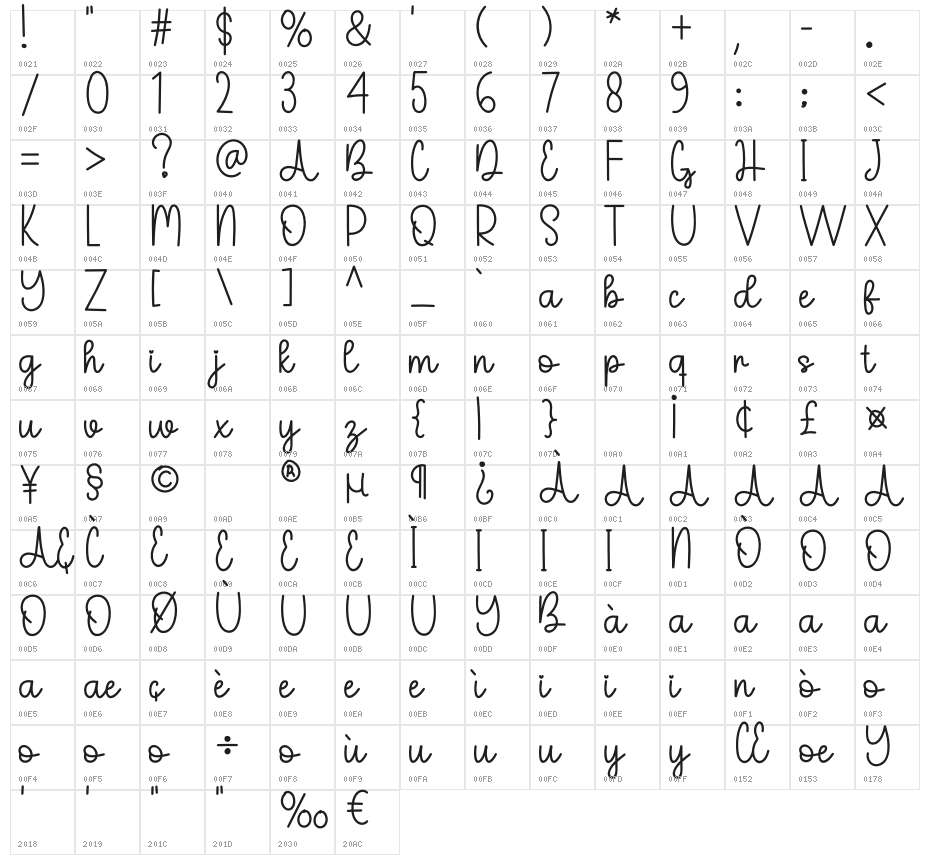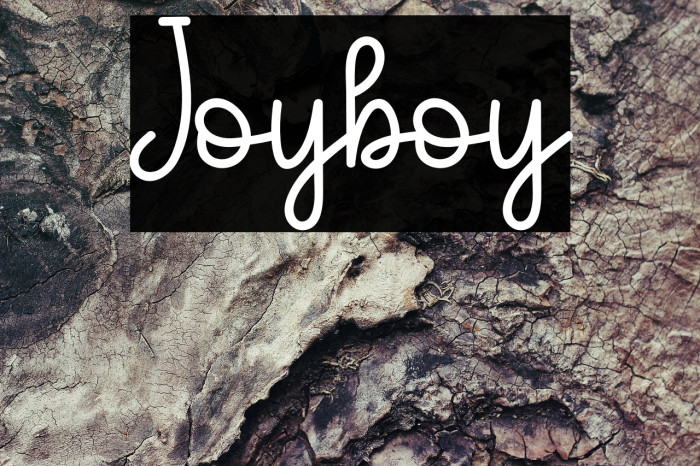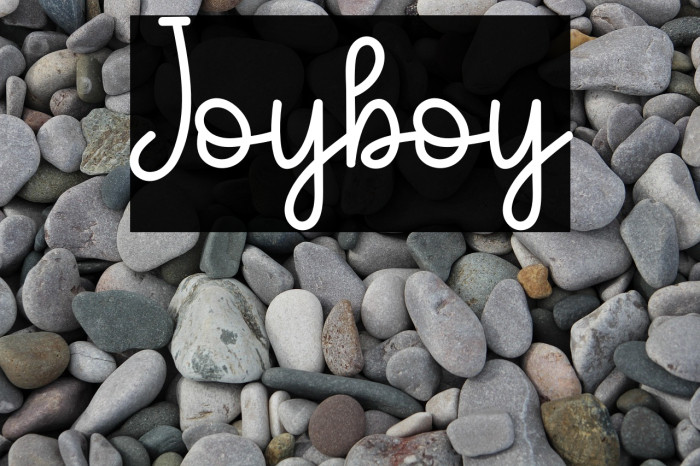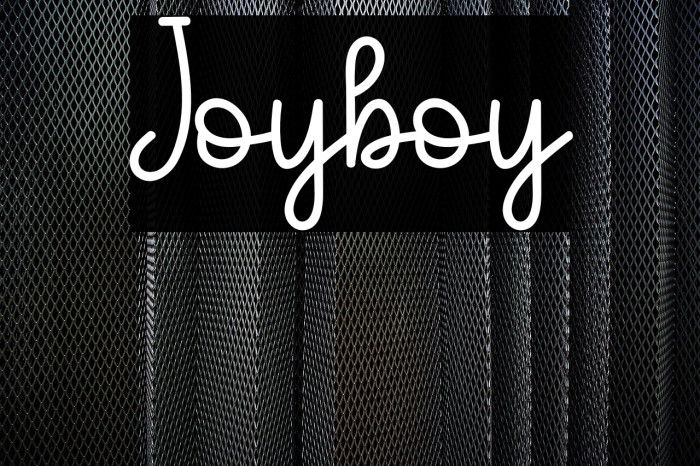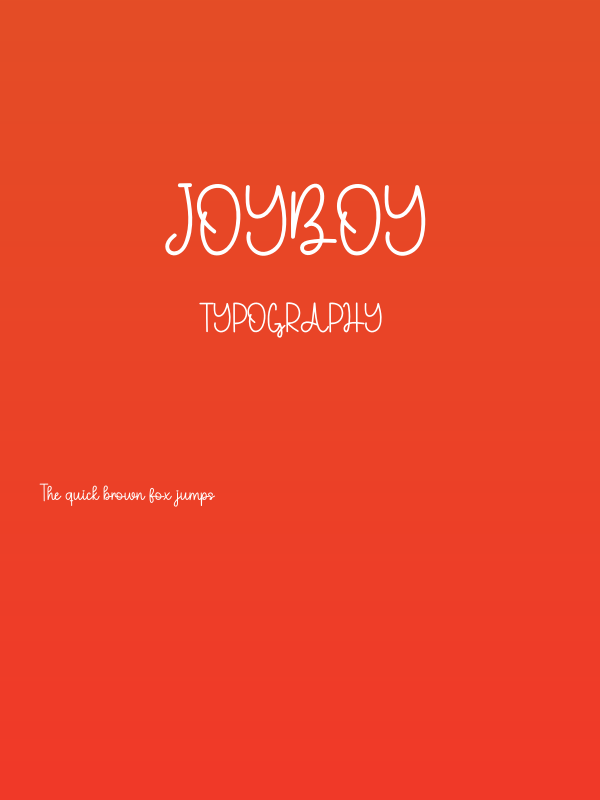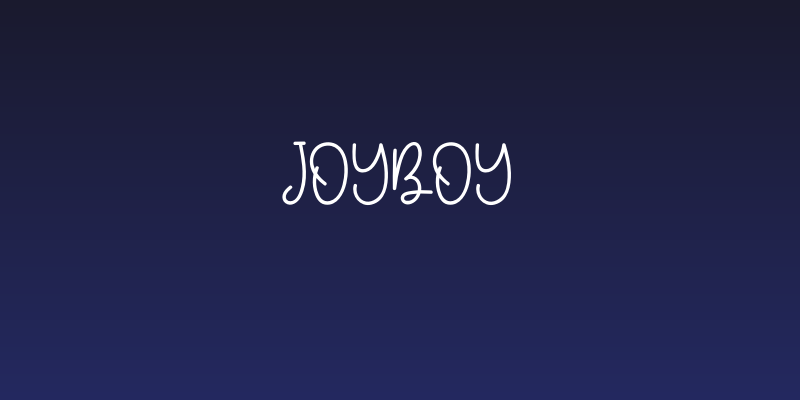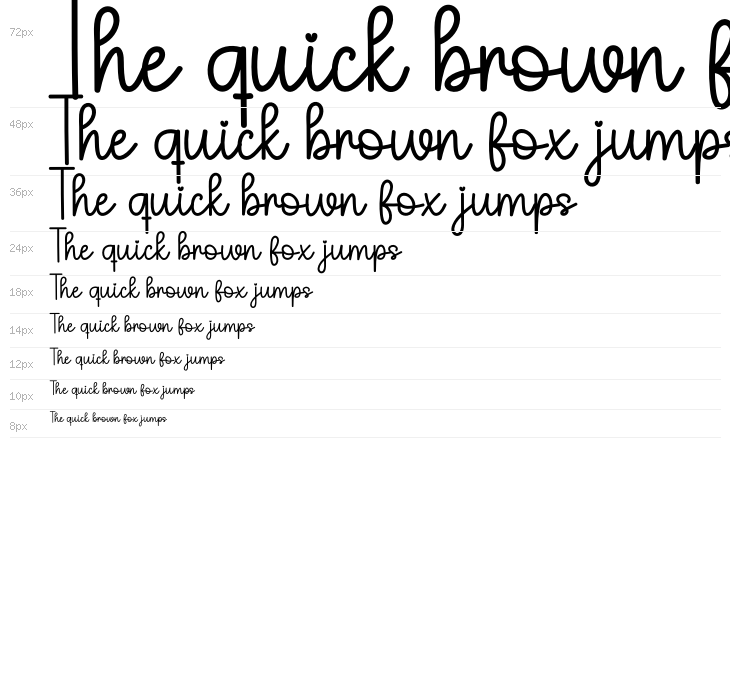
Joyboy Font
Joyboy Description
This playful and whimsical font features a handwritten style with a casual and friendly appearance. The letters are characterized by their smooth, flowing lines and slightly irregular shapes, giving them a personal and approachable feel. The uppercase letters are tall and slender, while the lowercase letters maintain a consistent height, adding to the font's charm. The numerals and special characters are designed to match the overall style, ensuring a cohesive look. This font's unique personality makes it suitable for projects that require a touch of creativity and warmth.
| Proposed Projects | Ideal for greeting cards, children's books, playful branding, and creative social media graphics. |